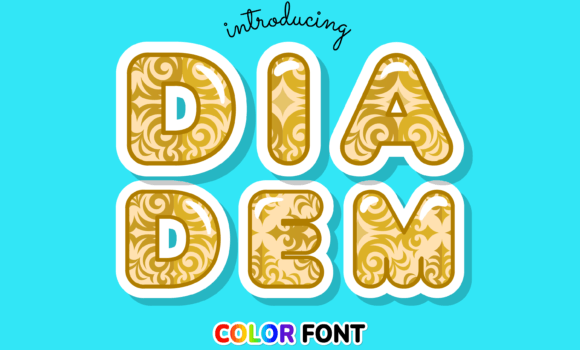
diadem
Diadem Font – Free Download Introduction to Diadem Font Diadem is an incredibly cool color font decorated with a fun crown pattern. 📸 Preview Gallery 2 images 📌 Product Name Diadem Font 👤 Author JUSTTYPE 📂 Category Explore ⬇️ Download